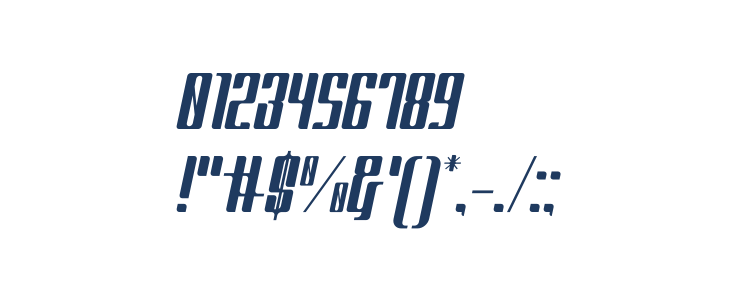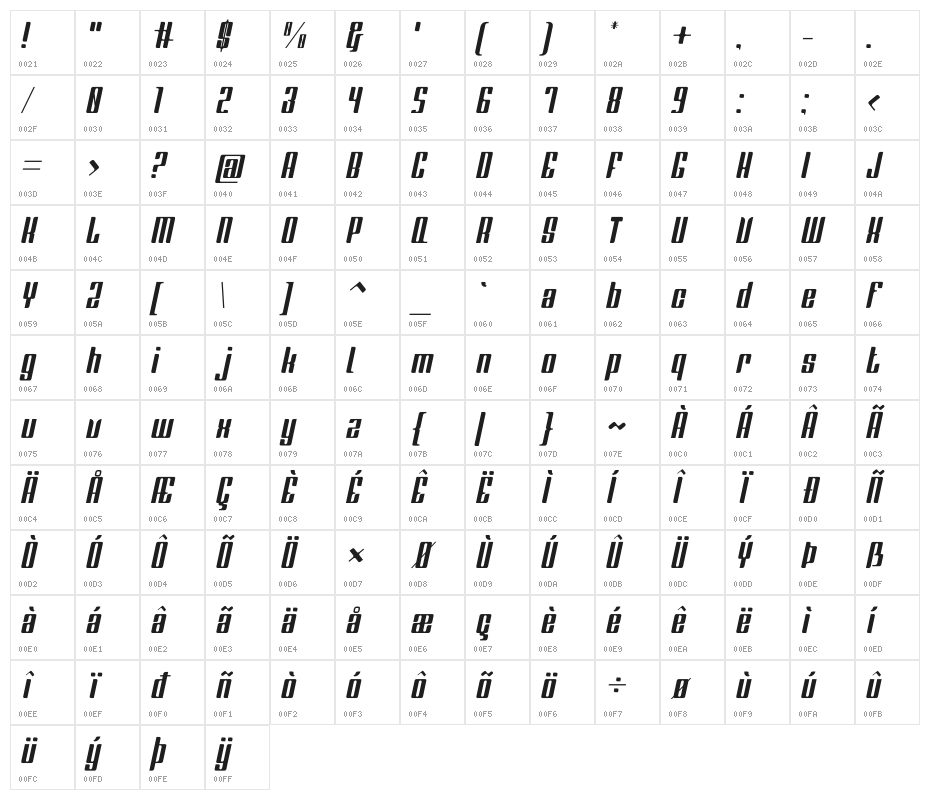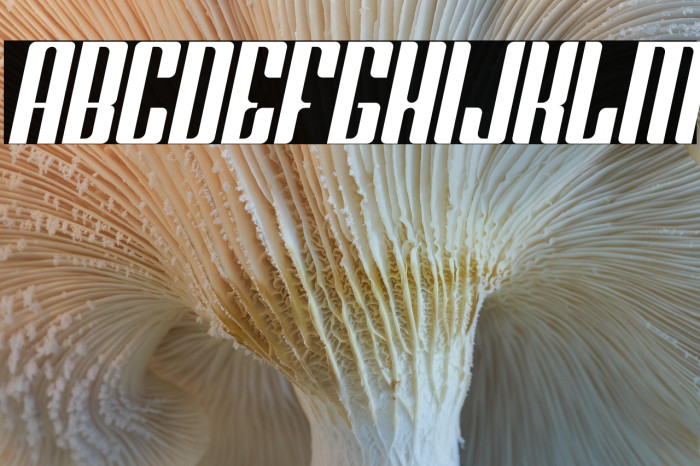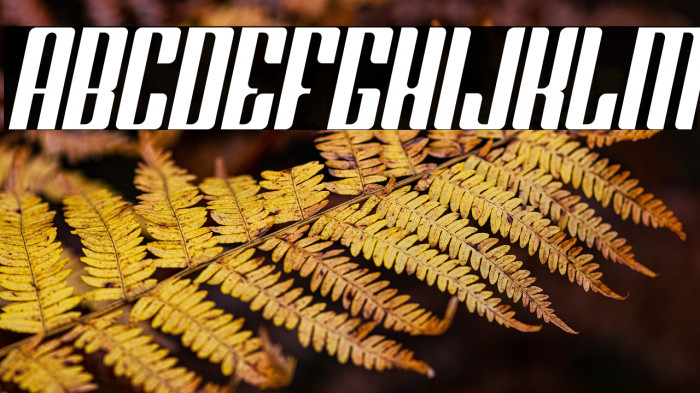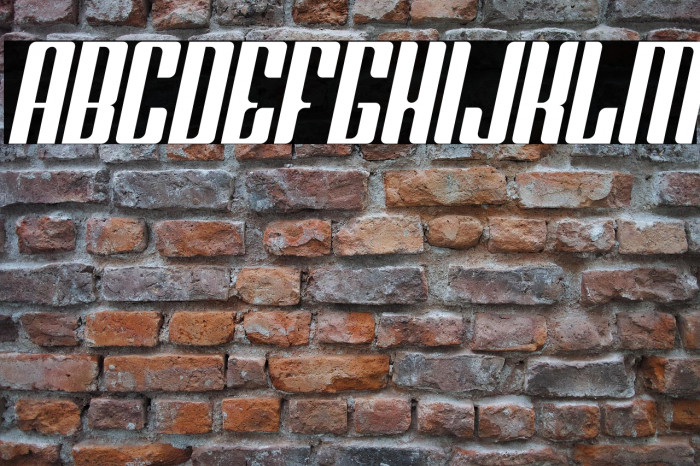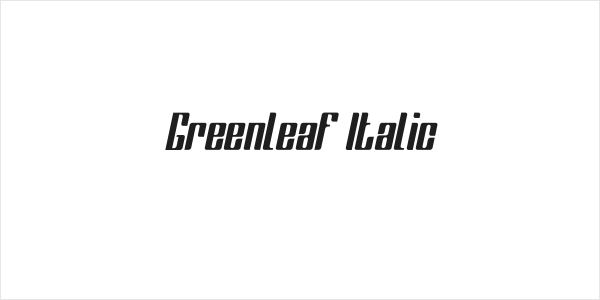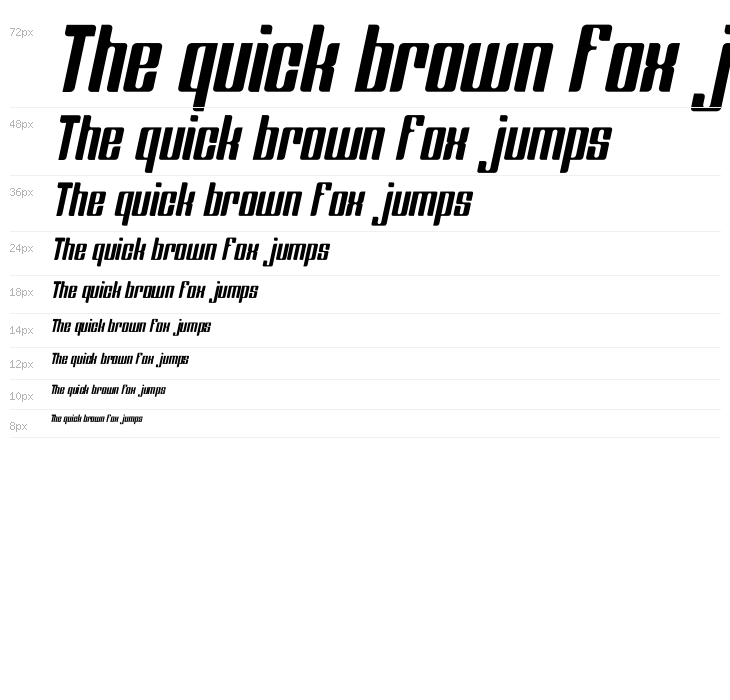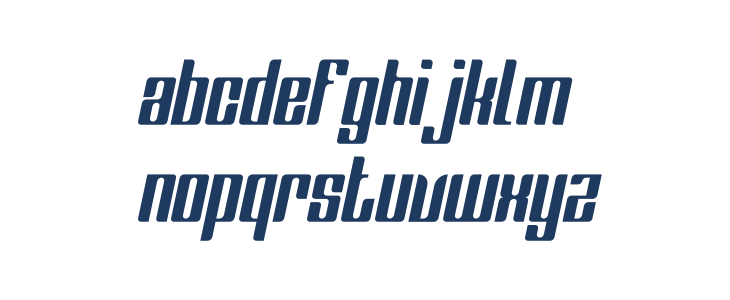
Greenleaf Italic Font
Greenleaf Italic Description
This font features a bold, italicized style with a modern and dynamic appearance. The characters are elongated and slightly condensed, giving them a sleek and streamlined look. The strokes are thick and consistent, providing a strong visual impact. The slanted design adds a sense of movement and energy, making it suitable for attention-grabbing headlines or titles. The uppercase and lowercase letters maintain a uniform style, while the numerals and special characters complement the overall aesthetic. The font's distinct and bold presence makes it ideal for projects that require a contemporary and assertive typeface.
| Proposed Projects | Ideal for branding, advertising, posters, and headlines that require a bold and modern look. |